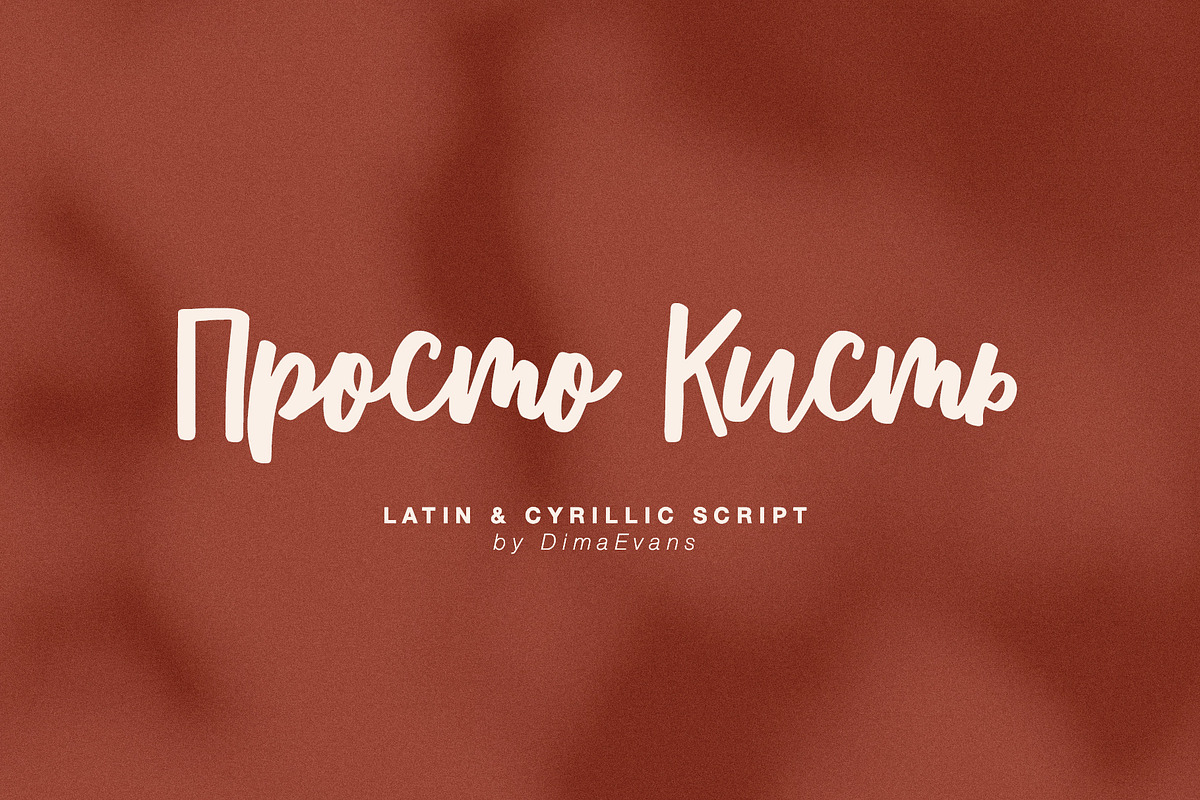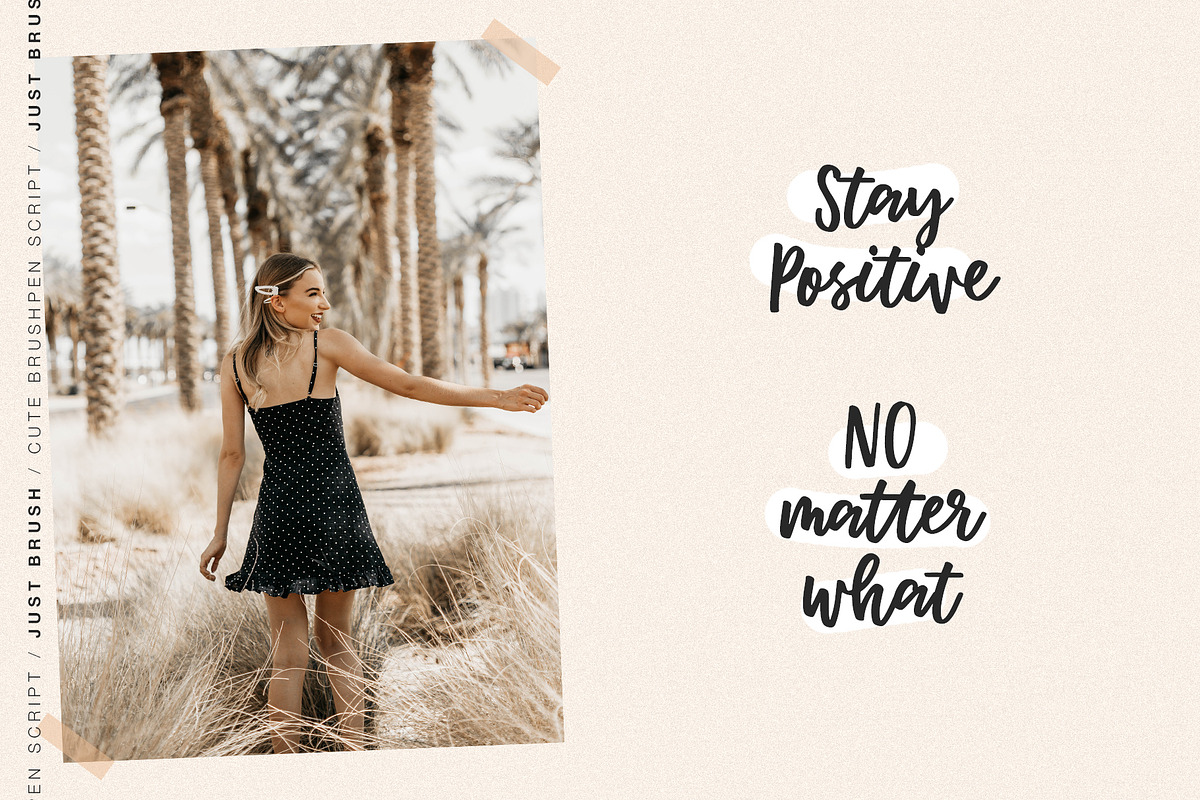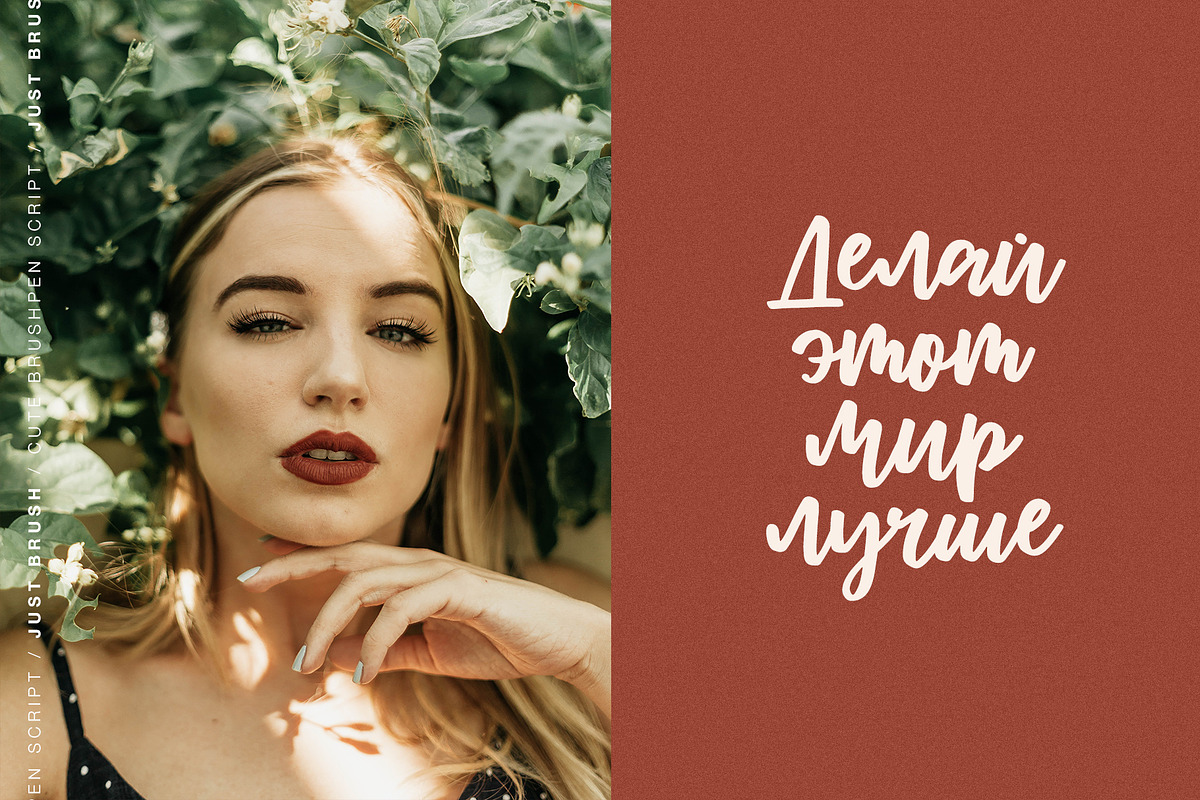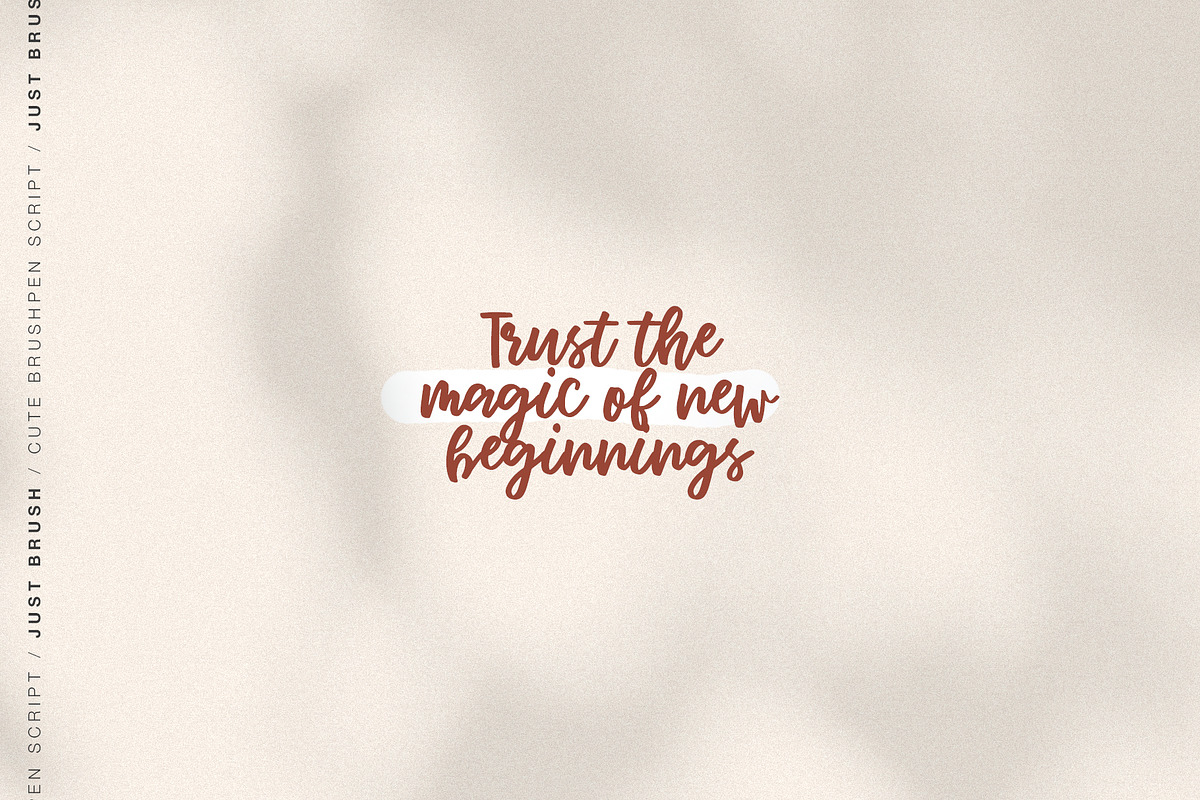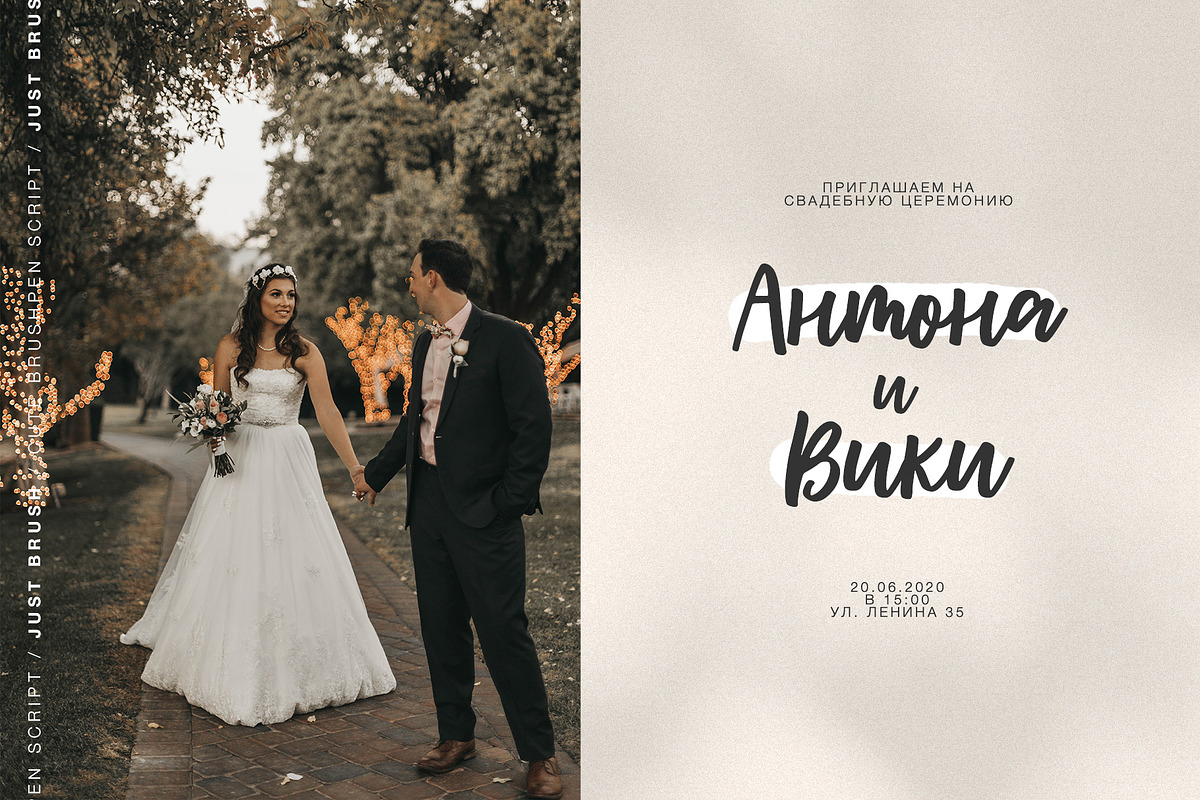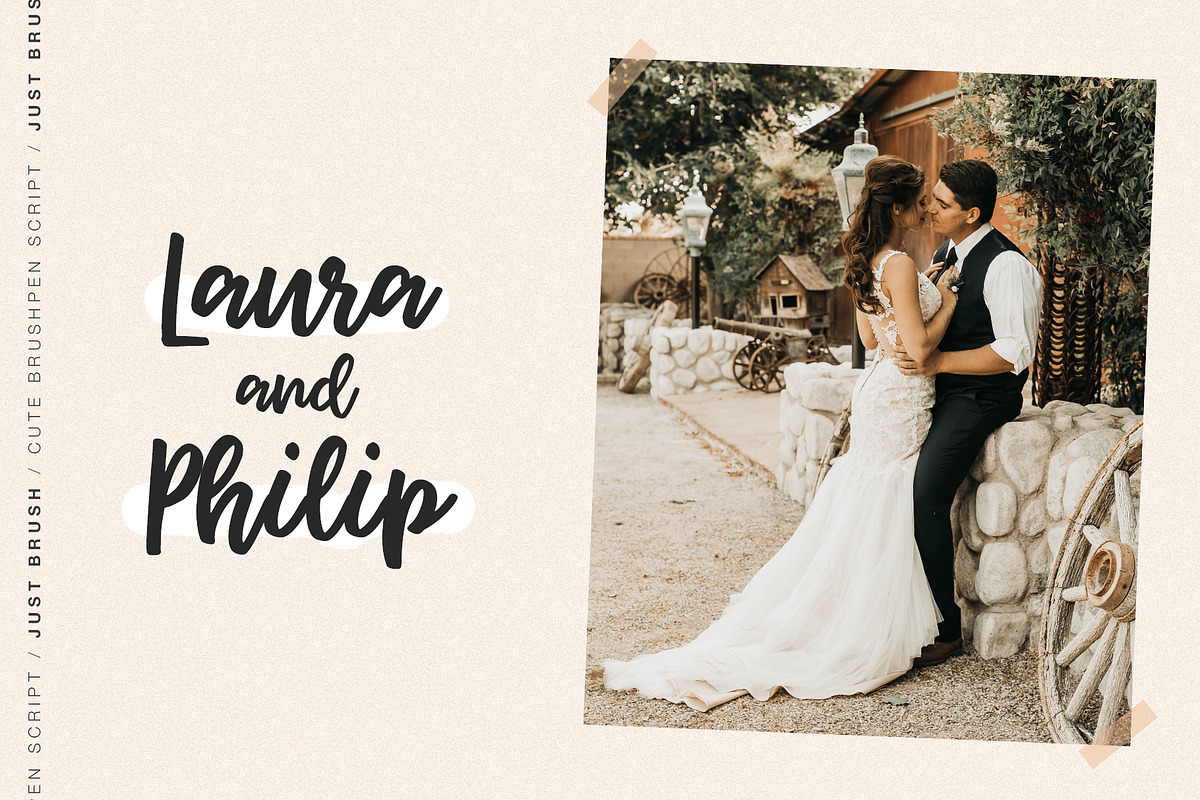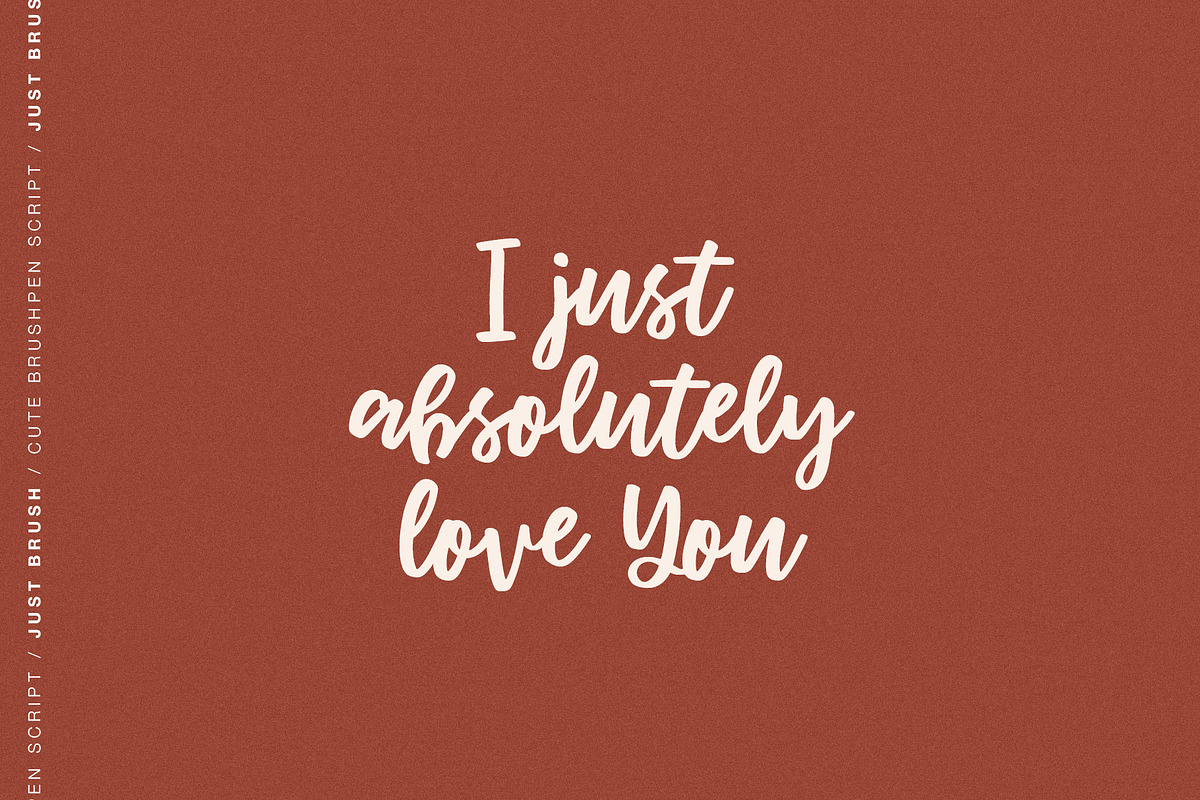
Just Brush Cyrillic font
Just Brush / Cute ScriptПросто Кисть / Милый шрифт с полной поддержкой кириллицы
Just Brush it is a Lettering chick font with full Cyrillic support . It is perfect for branding, wedding invitations and invitation cards and many more
Font includes a full set of gorgeous uppercase and lowercase letters, numbers, a large selection of punctuation marks, ligatures
Просто кисть это шрифт с полной поддержкой кириллицы . Он идеально подходит для брендинга, свадебных приглашений и пригласительных и многого другого
Шрифт включает в себя полный набор великолепных прописных и строчных букв, цифр, знаков препинания и лигатур
Latin languages support
Cyrillic languages support
Uppercase and lowercase
Numbers and punctuation